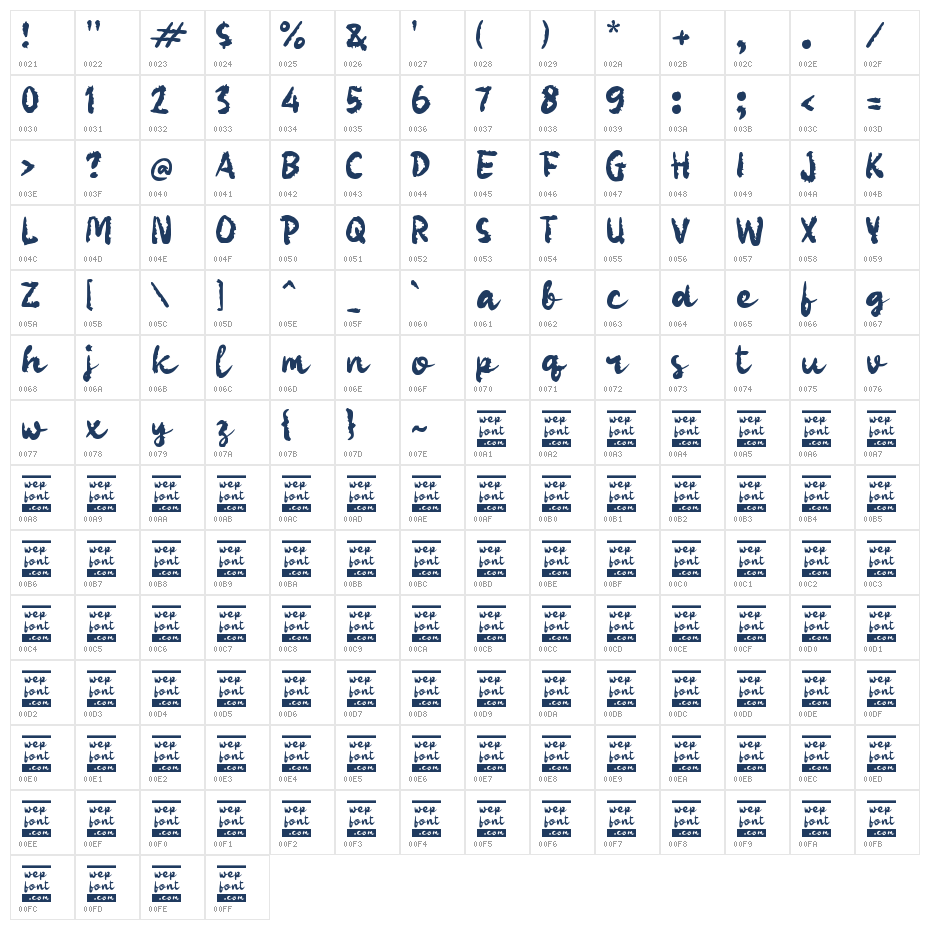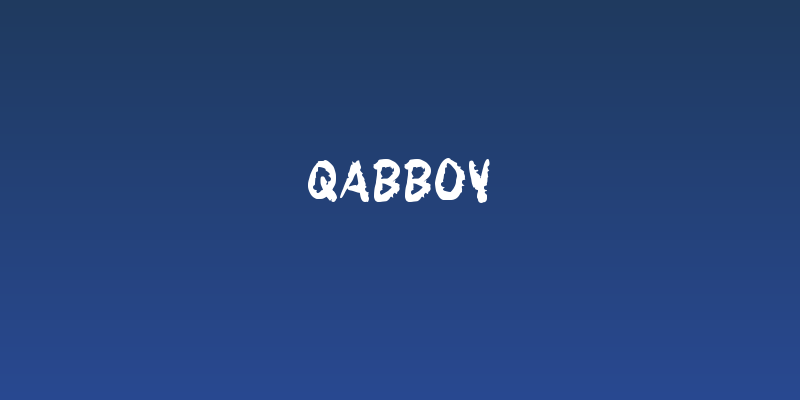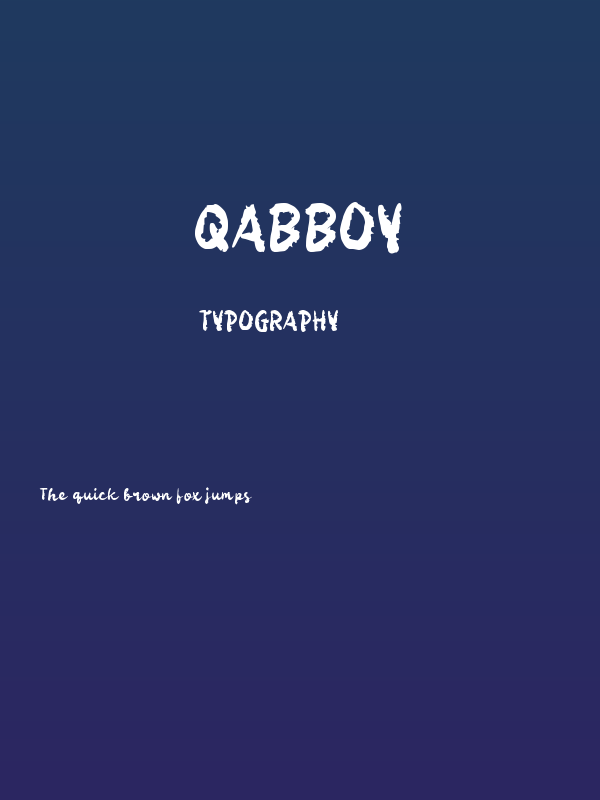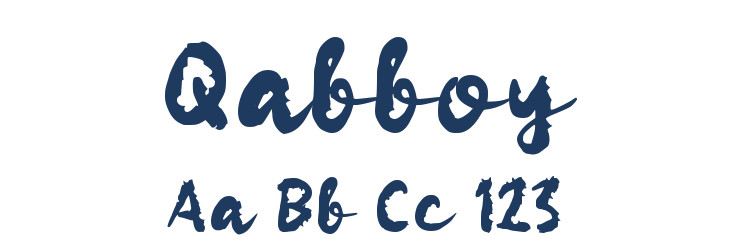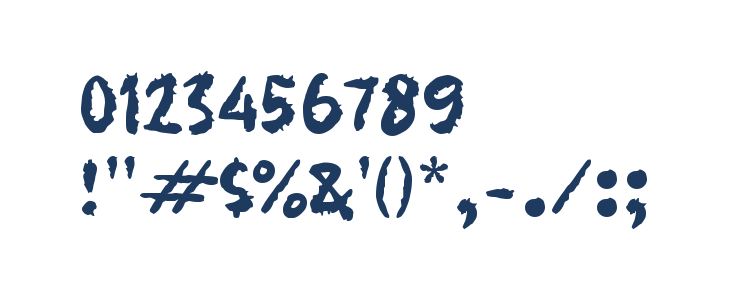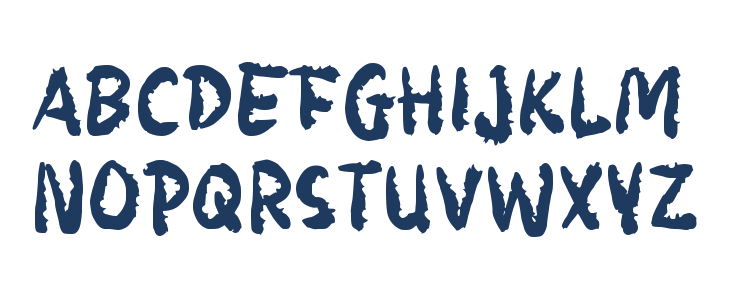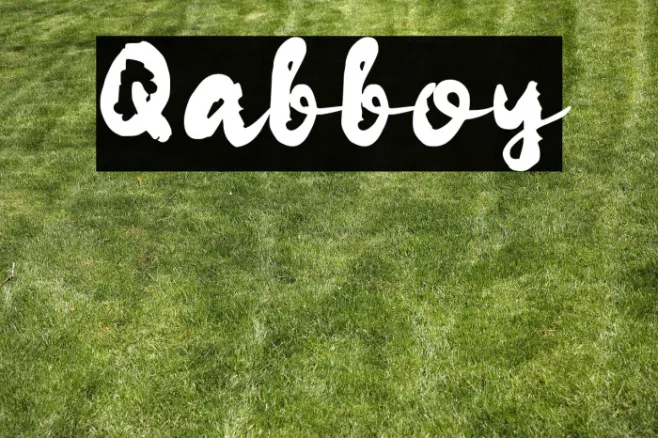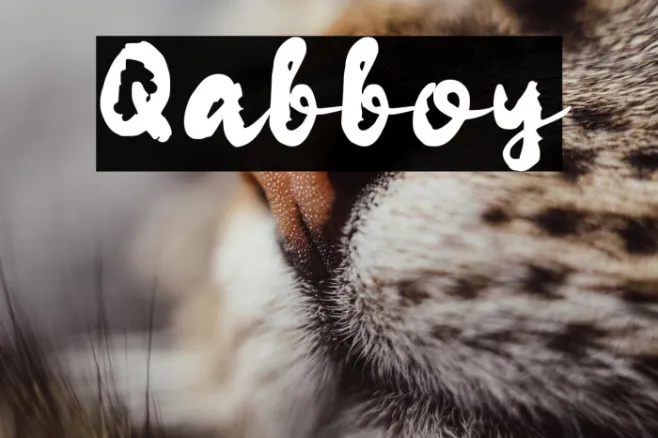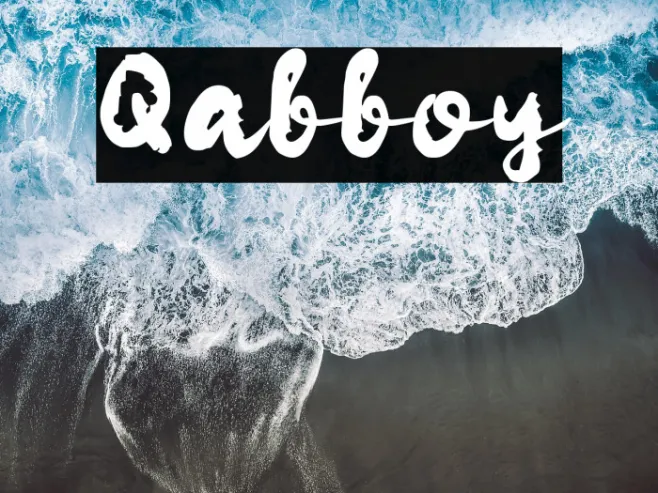
Qabboy Font
Qabboy Description
A bold, brush-stroke style font with irregular edges and a casual, hand-painted appearance.
| Overall Style | Casual, Artistic, Hand-painted |
| Use Case | Headlines, Posters, Creative branding |